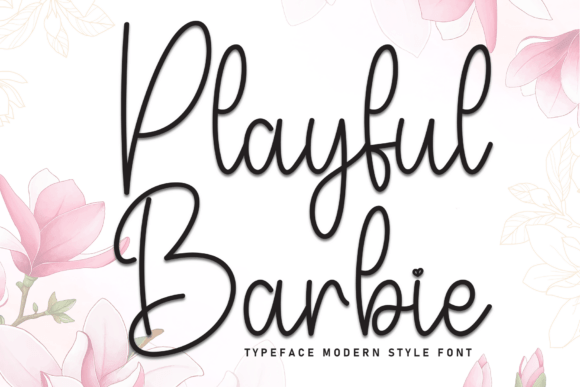
Introducing Playful Barbie Font: The Epitome of Elegance and Whimsy
In the world of typography, few fonts manage to strike a balance between elegance and playfulness. However, Playful Barbie Font achieves this delicate balance with finesse, making it a standout in the realm of handwritten script fonts. This stylish font is designed to infuse a sense of sophistication and charm into various projects, ranging from formal invitations to social media content.
The Essence of Playful Barbie Font
Playful Barbie is more than just a font; it’s an expression of creativity and warmth. Its flowing curves and natural rhythm bring a personal touch to any text, making it perfect for those looking to add a dash of personality to their content. Whether you’re working on wedding invitations, branding materials, or social media posts, this font ensures that your message is conveyed with elegance and a hint of playfulness.
Key Features of Playful Barbie Font
1. Elegant and Playful Design
The design of Playful Barbie Font is where it truly shines. With its elegant strokes and playful vibe, it manages to capture the essence of both sophistication and whimsy. This unique blend makes it versatile enough to be used in a variety of contexts.
2. Flowing Curves and Natural Rhythm
One of the standout features of Playful Barbie Font is its flowing curves and natural rhythm. These characteristics give the font a dynamic and organic feel, making any text appear more approachable and engaging.
3. Versatility
Playful Barbie Font is incredibly versatile. It can be used for a range of projects, including:
- Invitations: Add a touch of elegance and playfulness to wedding invitations, birthday parties, and other special occasions.
- Branding: Enhance your brand’s personality with a font that exudes warmth and sophistication.
- Social Media: Elevate your social media content with a font that captures attention and conveys your message with style.
Benefits of Using Playful Barbie Font
1. Adds a Personal Touch
In a digital world where communication can sometimes feel impersonal, Playful Barbie Font offers a way to add a personal touch to your content. Its unique design ensures that your message stands out and feels more heartfelt.
2. Enhances Brand Identity
For businesses, establishing a strong brand identity is crucial. Playful Barbie Font can play a significant role in this by adding a layer of sophistication and approachability to your branding materials.
3. Fosters Creativity
The playful nature of this font encourages creativity and experimentation. It invites designers and content creators to explore new ways of expressing themselves and connecting with their audience.
How to Use Playful Barbie Font Effectively
1. Pairing with Other Fonts
To maximize the impact of Playful Barbie Font, consider pairing it with complementary fonts. A combination of a playful script font like Playful Barbie with a clean sans-serif font can create a visually appealing contrast.
2. Choosing the Right Colors
The color scheme you choose can significantly affect how your content is perceived. Soft pastels, rich jewel tones, or classic black and white can enhance the elegance and playfulness of Playful Barbie Font.
3. Understanding the Context
Before using Playful Barbie Font, consider the context of your project. Its playful nature makes it suitable for more casual and creative projects, while its elegance ensures it can be used in more formal settings.
Playful Barbie Font is a stylish handwritten script font that brings a unique blend of elegance and playfulness to any project. Its flowing curves, natural rhythm, and versatile design make it an excellent choice for a wide range of applications. Whether you’re looking to add a personal touch to invitations, enhance your brand identity, or simply explore new creative avenues, Playful Barbie Font is an invaluable tool.
In the world of typography, fonts like Playful Barbie remind us of the power of design in communication. A well-chosen font can elevate your message, connect with your audience on a deeper level, and leave a lasting impression. With Playful Barbie Font, you’re not just choosing a font; you’re embracing a way to express yourself with elegance, whimsy, and creativity.